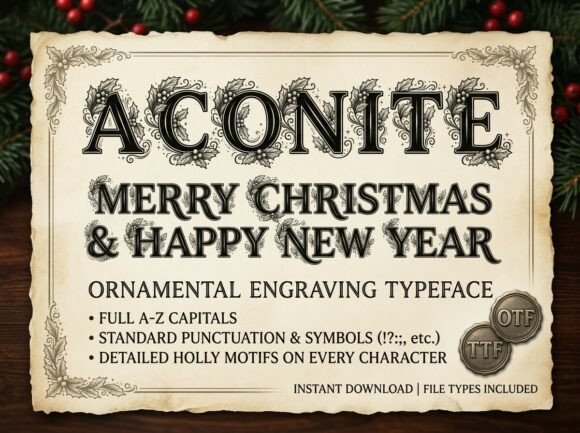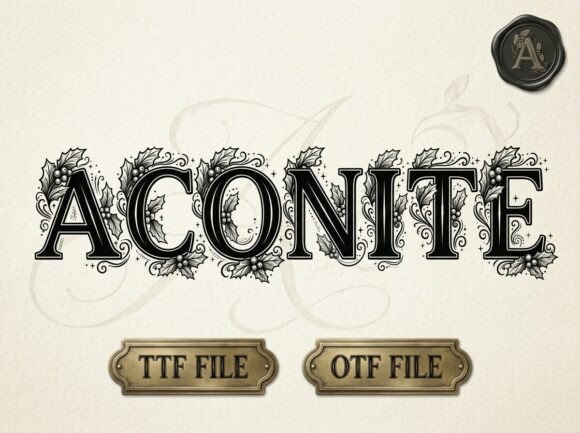
Celebrate the Season of Elegance with Aconite Font
As the winter season approaches, designers and crafters are on the lookout for the perfect font to capture the magic of the holiday season. Look no further than Aconite, a stunning holiday-inspired ornate font that embodies the elegance and wonder of a vintage winter.
A Masterful Blend of Tradition and Whimsy
Aconite is a true masterpiece of font design, with each character meticulously crafted to evoke the warmth and charm of old-world Christmas cards and Victorian winter festivals. The bold, traditional serif structure provides a timeless foundation, while the intricate botanical illustrations add a touch of whimsy and festivity.
The font’s design is characterized by classic holly leaves, delicate berries, and shimmering celestial stardust, all expertly intertwined to create a truly unique and eye-catching visual effect. Whether you’re looking to create luxury holiday branding, festive invitation suites, seasonal packaging, or “deluxe” editorial headers, Aconite is the perfect choice.
Aconite is a font that will appeal to designers and crafters who appreciate the art of traditional typography and the magic of the holiday season. With its intricate illustrations and classic serif structure, Aconite is perfect for a wide range of applications, including:
- Luxury holiday branding: Create a lasting impression with Aconite’s elegant and sophisticated font style.
- Festive invitation suites: Add a touch of vintage charm to your holiday invitations and party invites.
- Seasonal packaging: Make your holiday products stand out with Aconite’s unique and eye-catching font style.
- “Deluxe” editorial headers: Add a touch of luxury and sophistication to your editorial content with Aconite’s bold and traditional serif structure.
Key Features of Aconite Font
Aconite font boasts a range of key features that make it the perfect choice for designers and crafters. Some of its standout features include:
- Intricate botanical illustrations: Aconite’s illustrations are meticulously crafted to evoke the warmth and charm of old-world Christmas cards and Victorian winter festivals.
- Classic serif structure: The font’s traditional serif structure provides a timeless foundation for any design project.
- Bold and elegant: Aconite’s bold and elegant font style is perfect for creating a lasting impression.
- Highly versatile: Aconite can be used for a wide range of applications, from luxury holiday branding to festive invitation suites and seasonal packaging.
Tips for Using Aconite Font
To get the most out of Aconite font, here are a few tips to keep in mind:
- Experiment with different sizes: Aconite’s intricate illustrations are best showcased at larger font sizes, but the font also works beautifully at smaller sizes.
- Pair with complementary fonts: Aconite pairs beautifully with complementary fonts, such as sans-serif fonts or script fonts.
- Use for headlines and titles: Aconite’s bold and elegant font style makes it perfect for headlines and titles.
Aconite font is a true masterpiece of font design, perfect for designers and crafters who want to capture the magic of the holiday season. With its intricate botanical illustrations, classic serif structure, and bold and elegant font style, Aconite is the perfect choice for luxury holiday branding, festive invitation suites, seasonal packaging, and “deluxe” editorial headers. So why wait? Celebrate the season of elegance with Aconite font and bring a sense of heritage and festive wonder to every word.